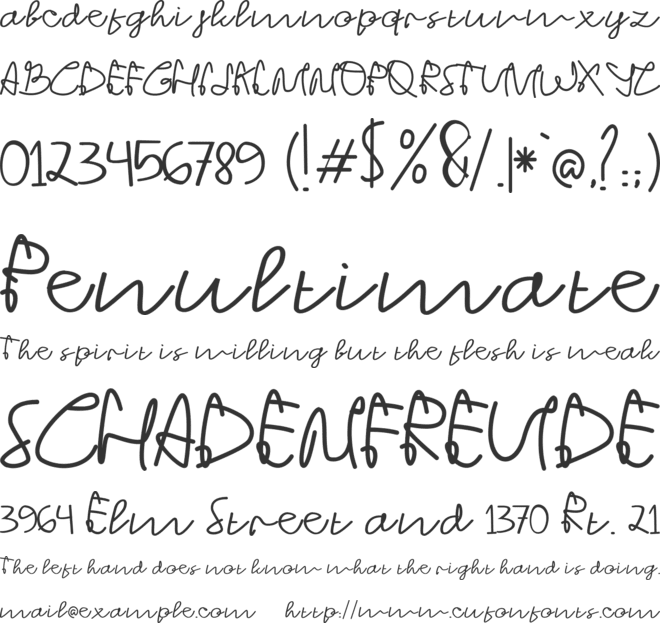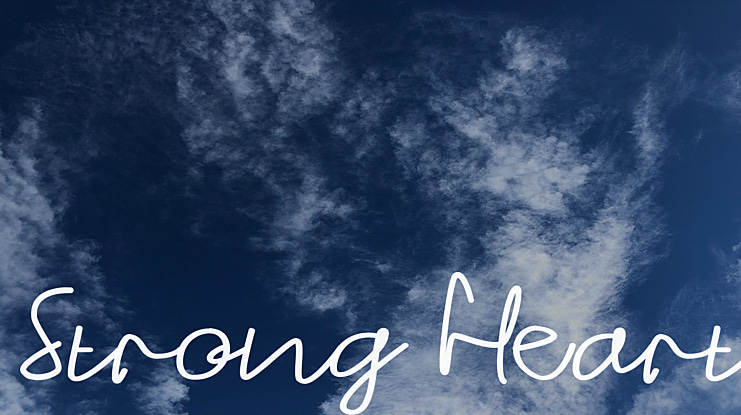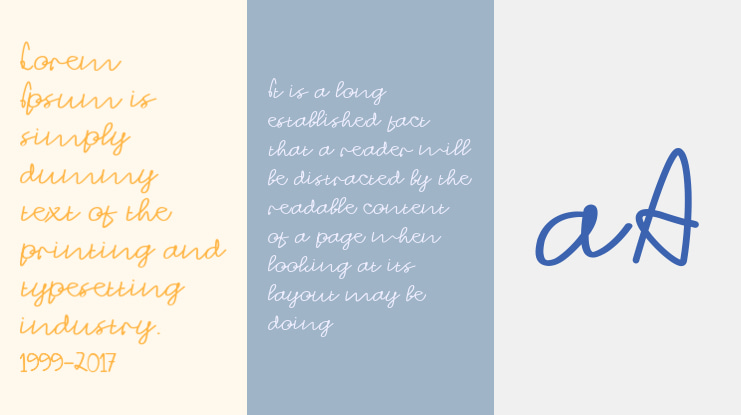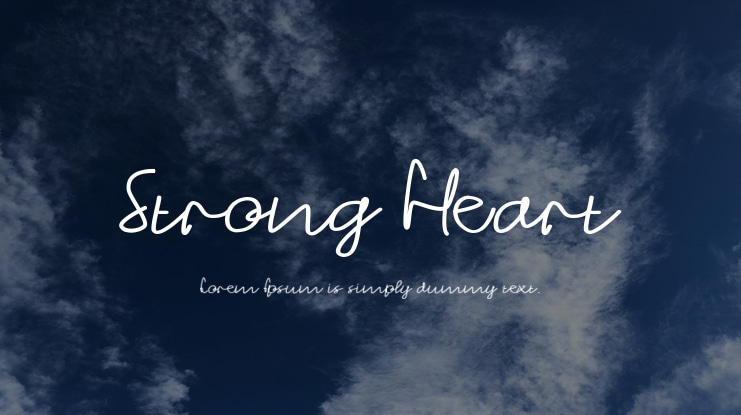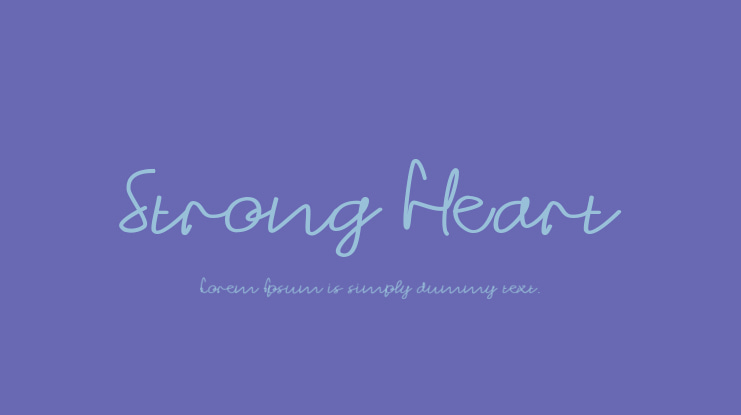
Strong Heart Font
Strong Heart is a whimsical script font with a relaxed theme, featuring a lovely style. No matter the topic, this font will be an incredibly asset to your fonts library, as it has the potential to elevate any creation.